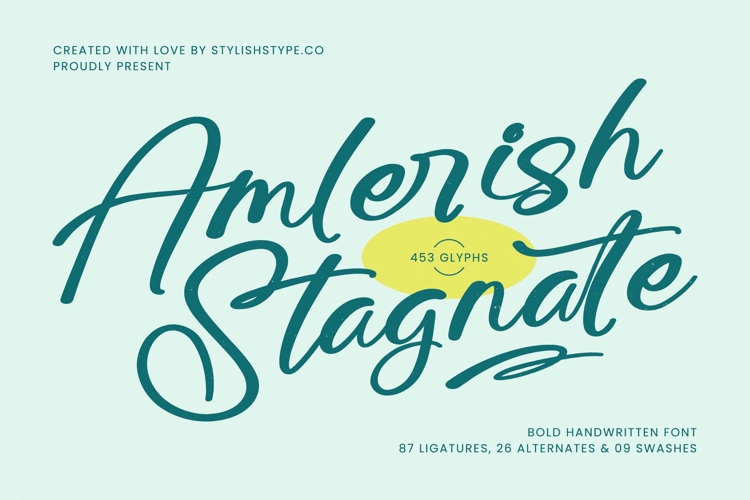
Amlerish Stagnate - Bold Handwritten Font
Unlock the power of authentic expression with Font Amlerish Stagnate - Bold Handwritten Font Script, a truly remarkable script typeface designed to infuse your projects with unparalleled warmth and personality. Its bold, flowing strokes exude a confident yet inviting aesthetic, perfectly capturing the essence of genuine human touch. This font marries handcrafted charm with a modern, impactful presence, ensuring your message stands out with distinctive elegance.
Dive into a world of creative freedom with Font Amlerish Stagnate - Bold Handwritten Font Script, which comes loaded with 87 ligatures, 26 alternates, and 09 swashes. These extensive OpenType features allow for incredible customization, enabling designers to craft unique, tailor-made typographic compositions. Whether you seek subtle refinement or dramatic flourishes, its rich glyph set offers the tools to achieve truly sophisticated appeal and visual consistency.
With its extensive multilingual support, Font Amlerish Stagnate - Bold Handwritten Font Script adapts seamlessly across global markets, making it incredibly versatile for international projects. This commitment to linguistic inclusivity ensures your brand maintains its authentic voice, regardless of geography, fostering seamless communication and a broader global presence. It's a reliable choice for any design requiring a touch of personalized professionalism.
Font Amlerish Stagnate - Bold Handwritten Font Script is ideally suited for a diverse range of high-value applications. It’s perfect for creating captivating headlines, memorable logos, elegant luxury branding, bespoke product packaging, stylish invitations, and engaging social media graphics. Elevate your designs with a typeface that promises not just readability, but an immediate emotional connection and a truly premium aesthetic.